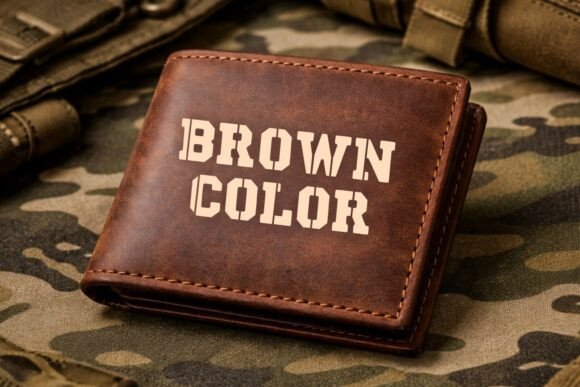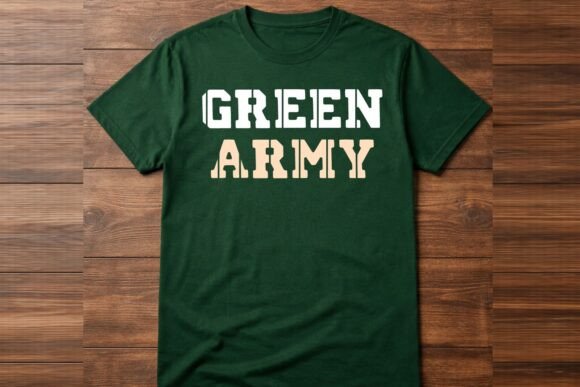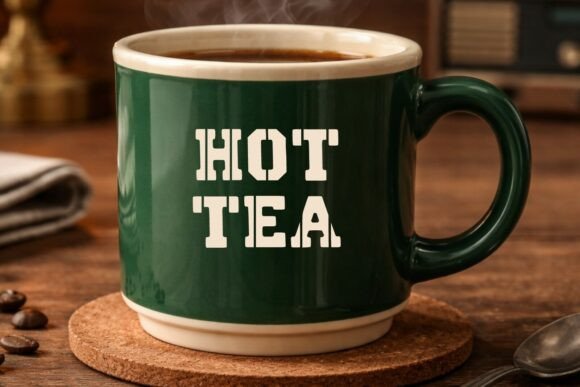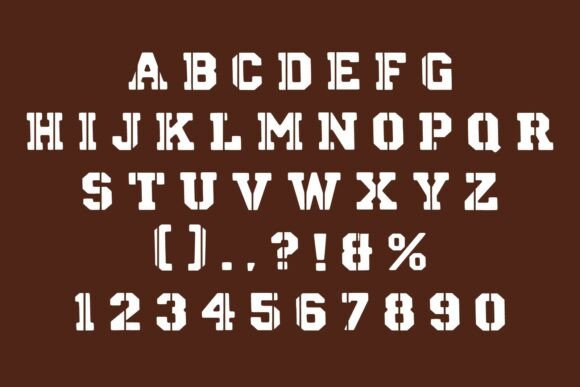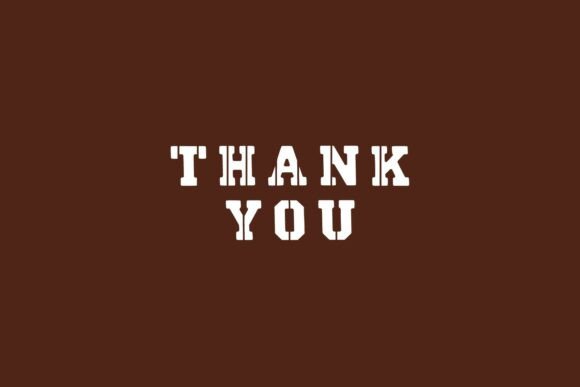
The Ultimate Font for Bold Designs: Army College
Have you ever been in the middle of a design project, and suddenly, you’re stuck on finding the perfect font? I recall a recent experience where I was working on a sports team logo, and I just couldn’t find a font that captured the right blend of strength and style. That’s when I stumbled upon the Army College font, and it completely transformed my design. In this article, we’ll dive into the world of Army College, a bold military-style display font that’s perfect for sports designs, team logos, posters, apparel, branding, badges, and army-themed projects.
A Personal Review: What I Love About Army College
Army College is a game-changer for designers looking for a font with a strong, rugged character and a tactical feel. Here are some things I love about this font:
- ✨ Bold and commanding presence: Army College delivers a powerful visual impact that’s perfect for making a statement.
- ✅ Highly versatile: This font can be used for a wide range of projects, from sports designs to army-themed posters.
- 💯 Easy to read: Despite its bold style, Army College remains highly legible, even at smaller sizes.
- 🎨 Great for branding and merchandise: The font’s strong character makes it ideal for creating memorable logos and branding materials.
While Army College is an excellent font, there are a few minor quirks to be aware of:
- 🤔 Limited use for body text: Due to its bold style, Army College is best suited for headlines and titles rather than body text.
- ⚠️ Some glyphs may require manual adjustment: As with any font, you may need to tweak certain glyphs to achieve the perfect spacing and alignment.
Army College was inspired by classic army stencils and collegiate lettering. The designer aimed to create a font that captured the essence of military strength and style, while also being highly versatile and easy to read. The result is a font that’s perfect for designers looking for a bold, commanding presence in their work.
| What type of projects is Army College best suited for? | Army College is perfect for sports designs, team logos, posters, apparel, branding, badges, and army-themed projects. |
| Is Army College suitable for body text? | No, Army College is best suited for headlines and titles due to its bold style. |
| Does Army College support OpenType features? | Yes, Army College supports OpenType features, including glyphs and stylistic alternates. |